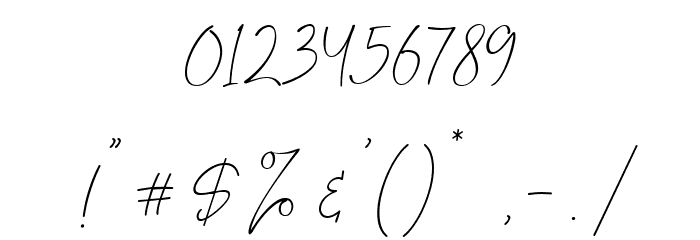
Prettier Script Regular Font
Prettier Script Regular Description
This font exudes a graceful and elegant script style, characterized by its flowing, cursive letterforms that mimic the fluidity of natural handwriting. The strokes are thin and delicate, with a consistent slant that adds to its sophisticated appearance. Each character is well-defined, yet maintains a sense of spontaneity and movement, making it ideal for conveying a personal touch. The uppercase letters are slightly more ornate, while the lowercase letters maintain a smooth and continuous flow. The numerals and special characters are equally refined, ensuring a cohesive look across all text elements.
| Use Case | Logos, Invitations, Personal Correspondence |
| Proposed Projects | Ideal for wedding invitations, greeting cards, personal branding, and elegant packaging designs. |